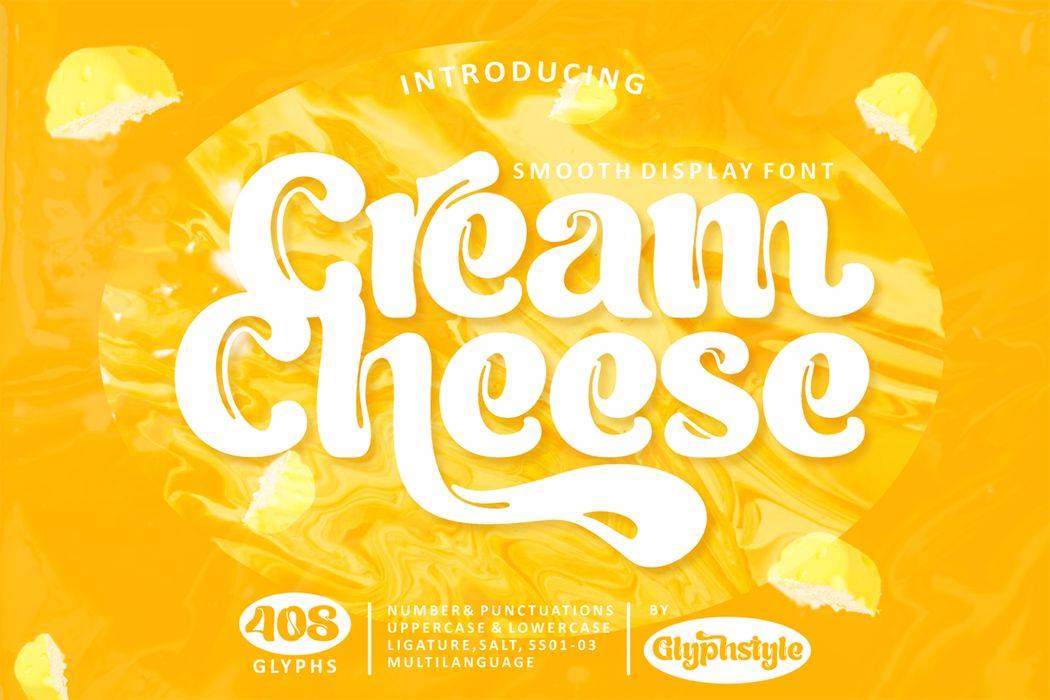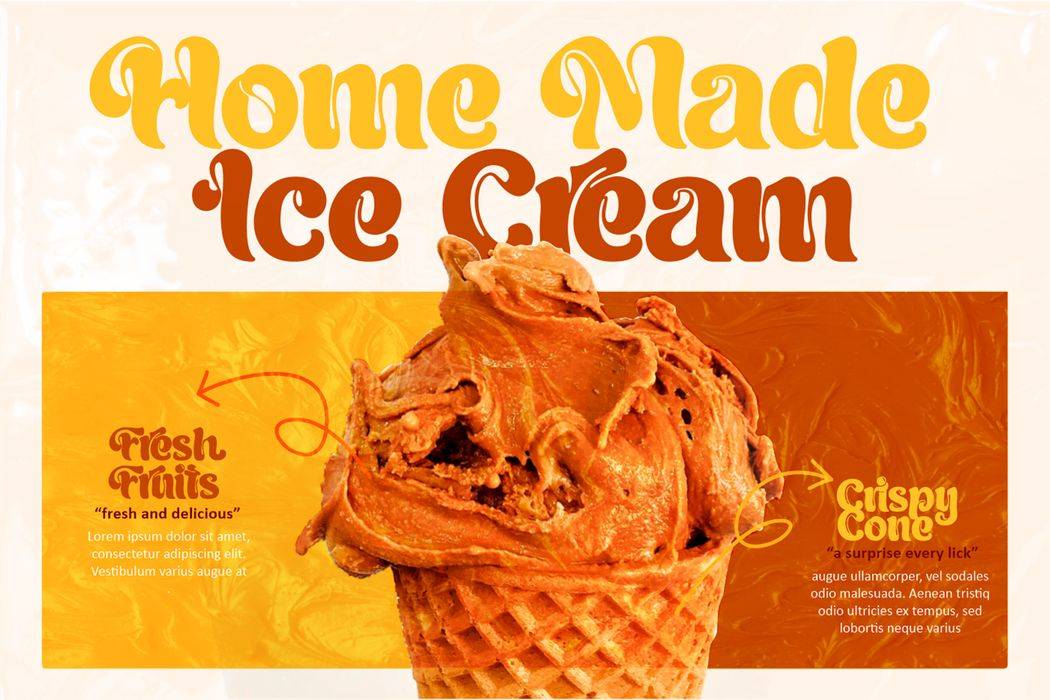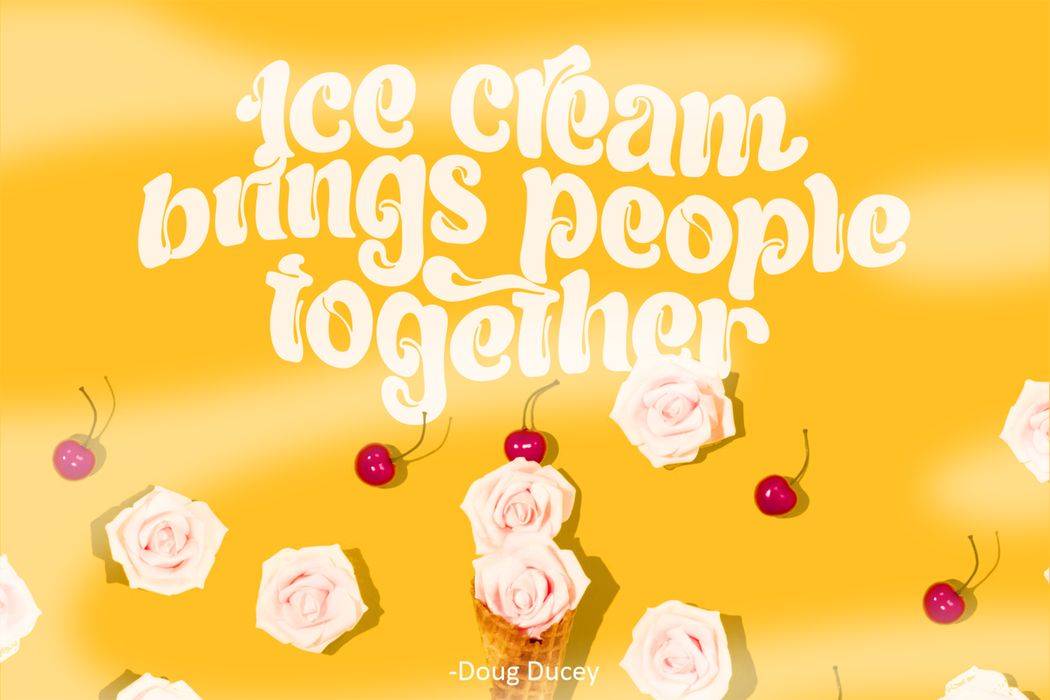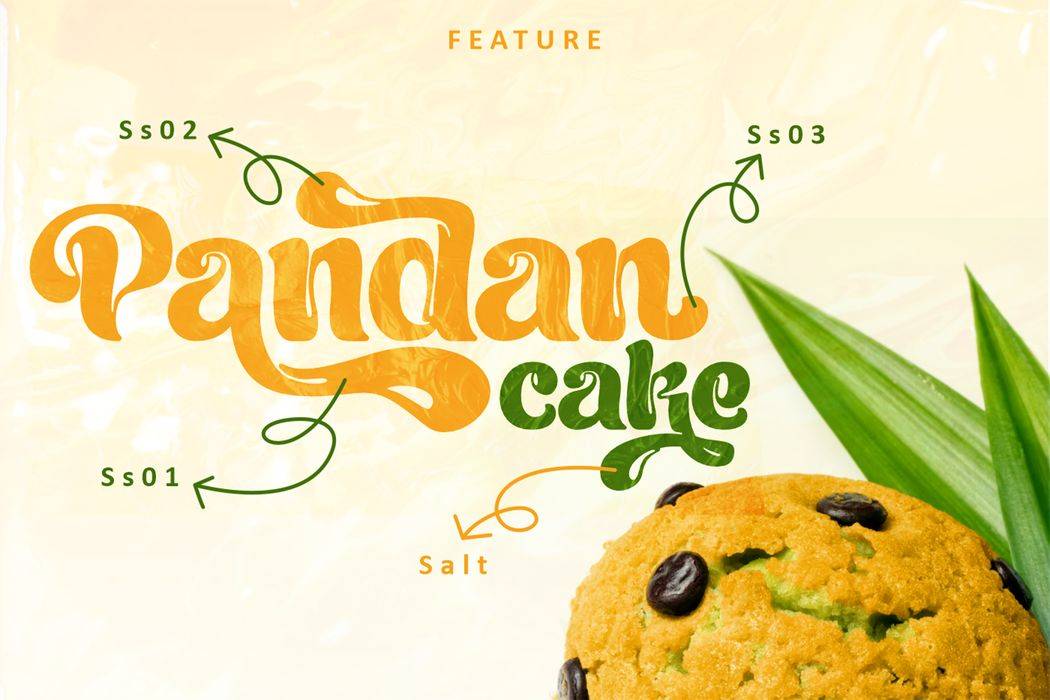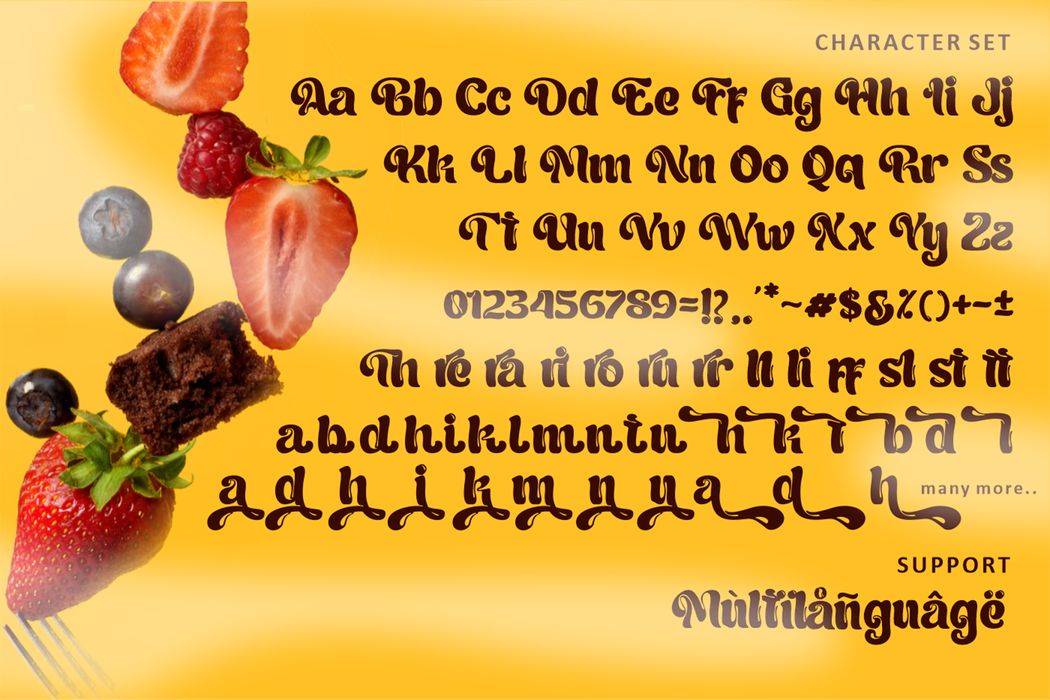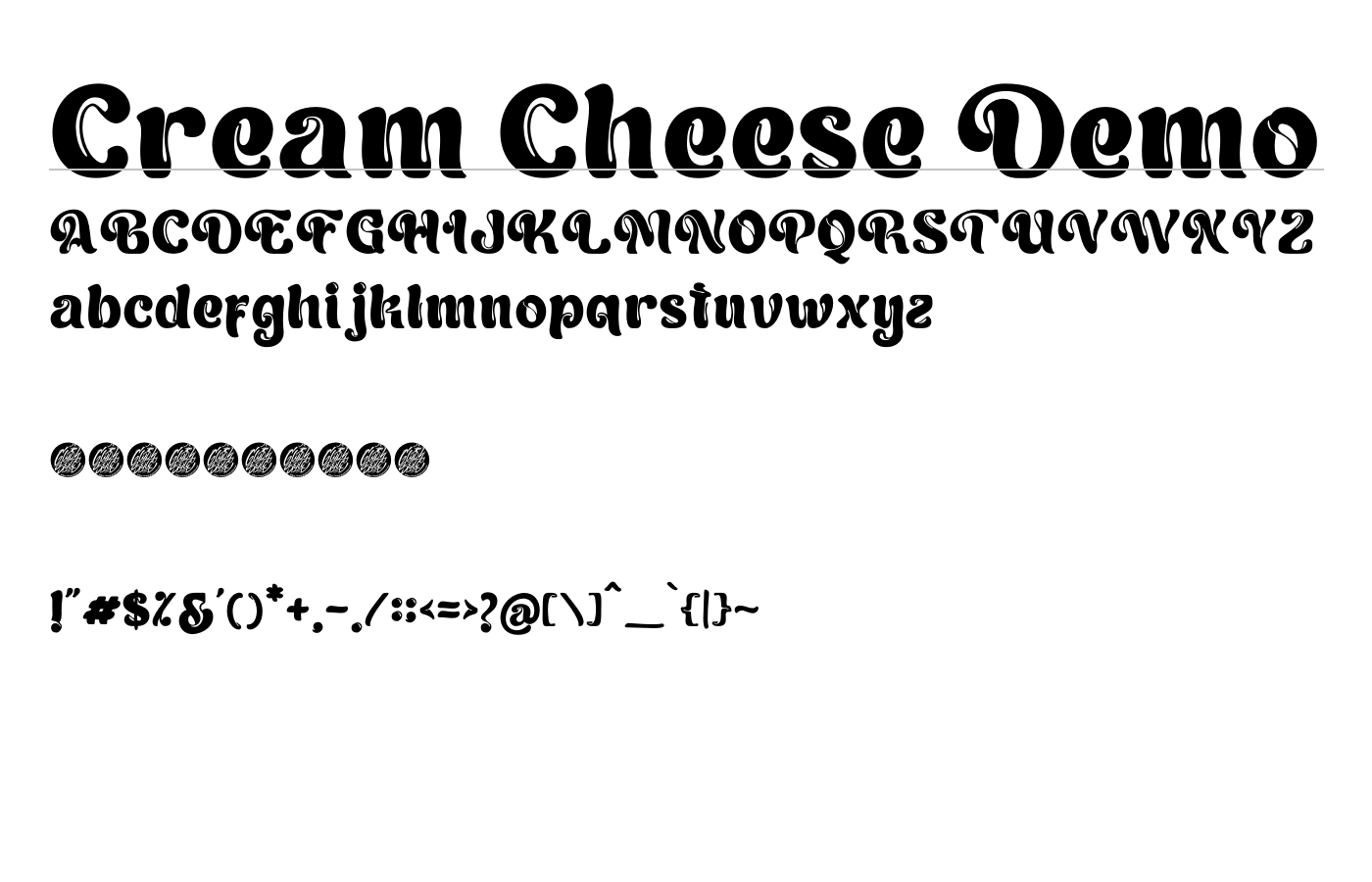
Cream Cheese is a bold, playful serif font with thick, rounded strokes and whimsical letterforms, featuring distinctive swirls and curls that give it a friendly, vintage vibe. Its strong presence and unique style make it perfect for eye-catching logos, posters, and branding that aims to convey creativity and charm in a fun, approachable way.
Cream Cheese Font
About Cream Cheese Font